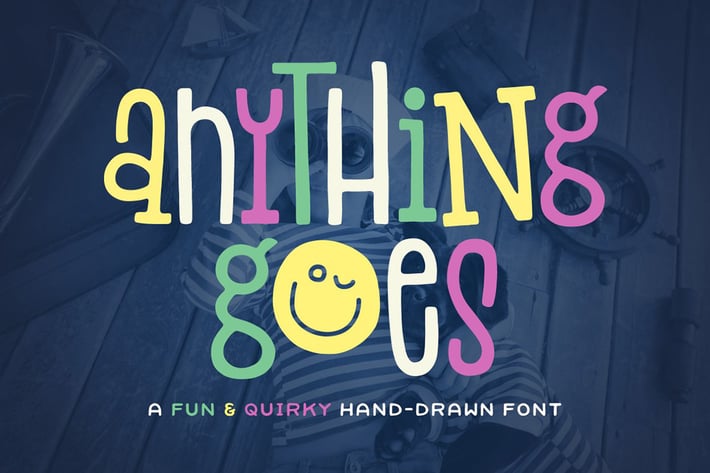
Anything Goes Font
Anything Goes is a charming font with a quirky, hand-drawn style. The bouncy characters include a mixture of sans and slab serif styles.